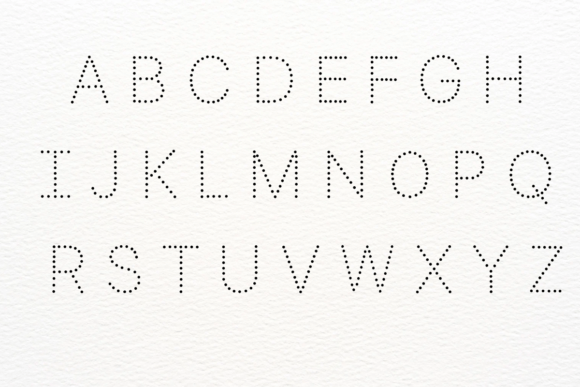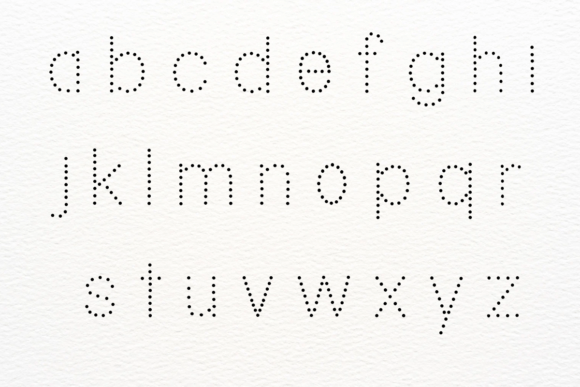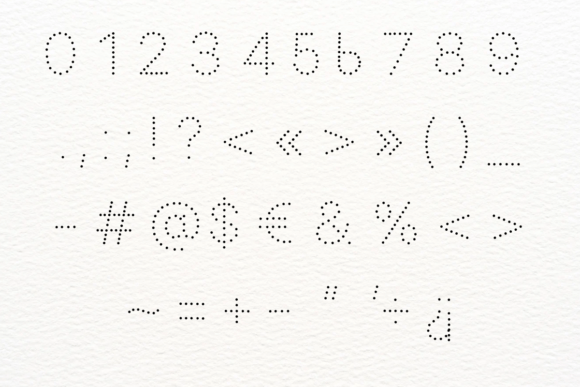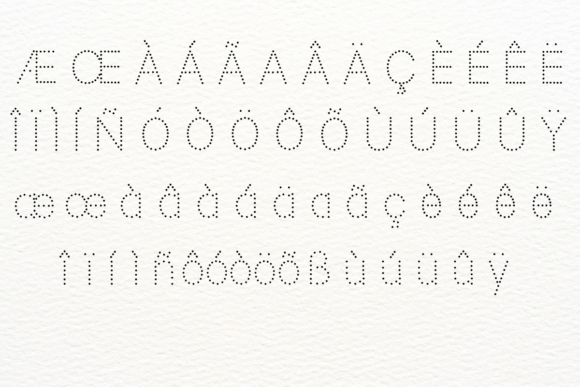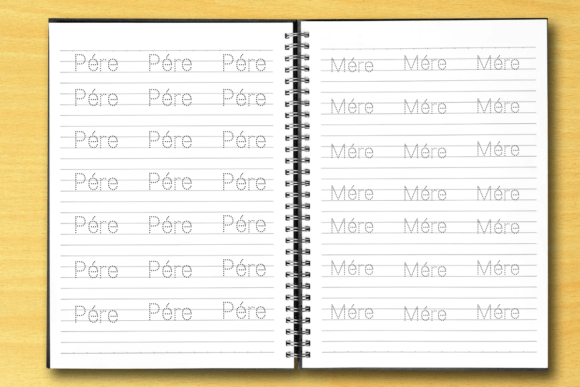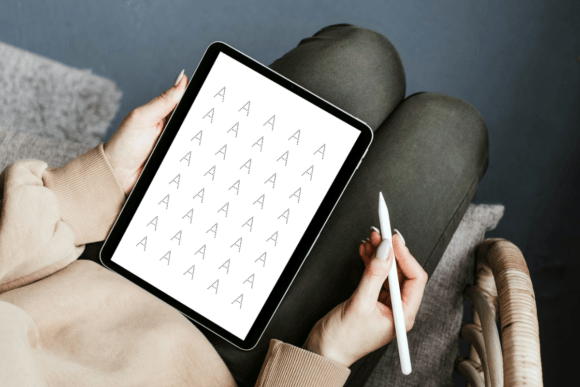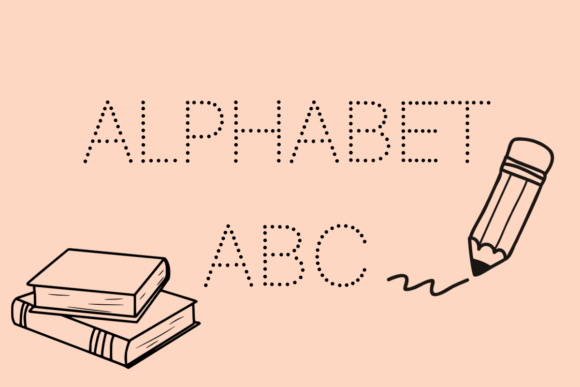
Unlocking the Power of Alphabet ABC Font: A Fun and Engaging Way to Boost Writing Proficiency
Learning the alphabet is a fundamental skill that lays the foundation for future academic success. However, traditional teaching methods can often be dry and unengaging, making it challenging for children to stay motivated. This is where the Alphabet ABC Font comes in – a game-changing approach that combines fun and functionality to make learning an enjoyable experience. In this article, we’ll explore the benefits of using special characters, such as dot-to-dot exercises, to enhance alphabet acquisition and writing proficiency in children.
The Benefits of Dot-to-Dot Exercises
Introducing dot-to-dot exercises is a fantastic method to bolster children’s writing proficiency in an enjoyable and efficient manner. By integrating special characters, these exercises become even more captivating. This approach not only enhances alphabet acquisition but also makes the learning process highly engaging. Ultimately, it offers a blend of fun and utility, catering to the needs of both children and users.
Dot-to-dot exercises offer a range of benefits, including:
• Improved fine motor skills: By connecting dots to form letters and shapes, children develop their fine motor skills, hand-eye coordination, and dexterity.
• Enhanced cognitive skills: Dot-to-dot exercises help children recognize patterns, shapes, and letters, which are essential cognitive skills for learning and development.
• Boosted creativity: The creative freedom to connect dots and form unique shapes and letters encourages children to think outside the box and explore their artistic side.
The Power of Alphabet ABC Font
The Alphabet ABC Font is a specially designed font that incorporates unique characters and dot-to-dot exercises to make learning the alphabet a fun and engaging experience. This font offers a range of benefits, including:
• Easy alphabet acquisition: The Alphabet ABC Font makes it easy for children to learn and recognize letters, sounds, and shapes.
• Improved writing proficiency: By practicing dot-to-dot exercises with the Alphabet ABC Font, children develop their writing skills, including letter formation, spacing, and alignment.
• Enhanced engagement: The use of special characters and dot-to-dot exercises makes learning fun and interactive, keeping children engaged and motivated.
Design and Crafting Applications
The Alphabet ABC Font and dot-to-dot exercises have a range of applications in design and crafting, including:
• Educational materials: Design engaging workbooks, worksheets, and activity sheets for children to learn and practice their alphabet skills.
• Crafting projects: Use the Alphabet ABC Font and dot-to-dot exercises to create unique and personalized crafting projects, such as customized alphabet charts, posters, and cards.
• Digital products: Develop interactive digital products, such as apps, games, and e-books, that incorporate the Alphabet ABC Font and dot-to-dot exercises to make learning fun and engaging.
In conclusion, the Alphabet ABC Font and dot-to-dot exercises offer a powerful and engaging way to boost children’s writing proficiency and alphabet acquisition. By incorporating special characters and interactive exercises, learning becomes a fun and enjoyable experience, catering to the needs of both children and users. Whether you’re a designer, crafter, or educator, the Alphabet ABC Font and dot-to-dot exercises provide a valuable tool for creating engaging and effective learning materials.